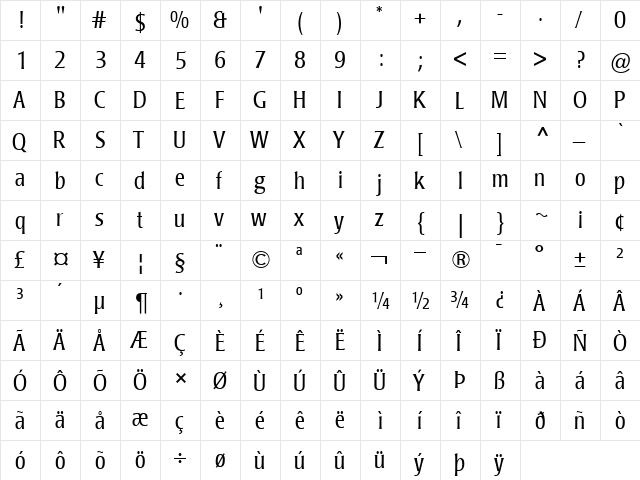
Poppl-Laudatio-CondensedLight Light Font Preview
Design Context for Poppl-Laudatio-CondensedLight Typeface
Poppl-Laudatio-CondensedLight offers clean, dependable letterforms without strong stylistic allegiance, making it a practical choice for designers who need flexibility. Its slender proportions lend an understated elegance to any composition. Its narrow stance lets it pack a punch even in space-constrained designs.